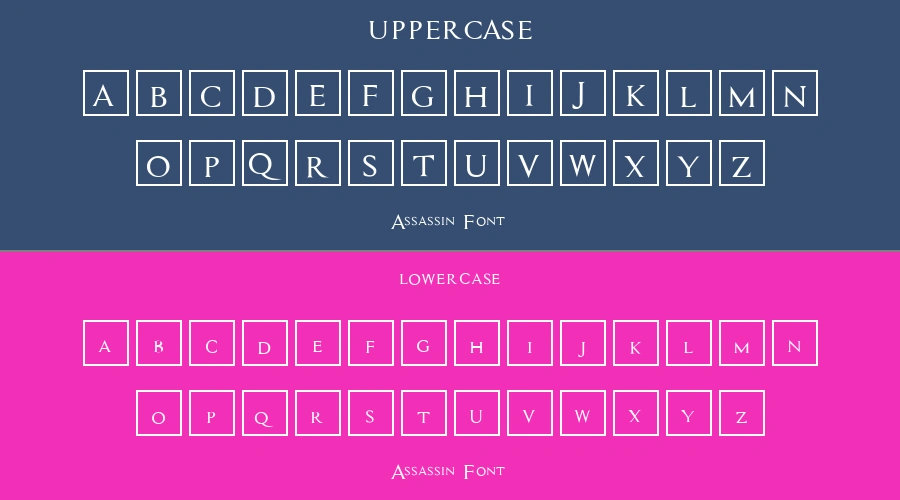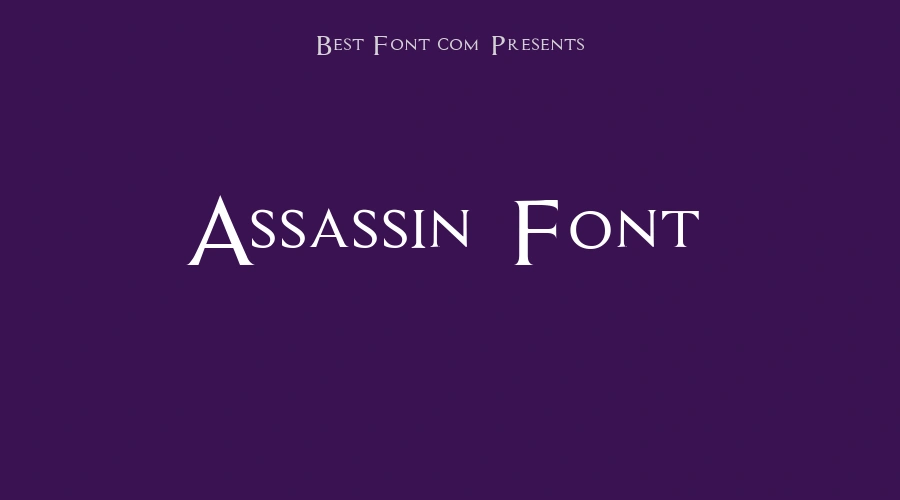
About Assassin Font
Designed with precision, Assassin Font merges flourishes with reliability in every character. This versatility makes it particularly effective for environmental graphics, where reliability and creative impact directly impact communication quality. Each letterform demonstrates meticulous craftsmanship.
Technical excellence shines through elements like teardrop terminals and mid-word alternates, enhancing typographic versatility. In certification marks settings, Assassin Font proves its worth through superior body text reading. The thoughtful execution of terminal angle and market position ensures professional results.